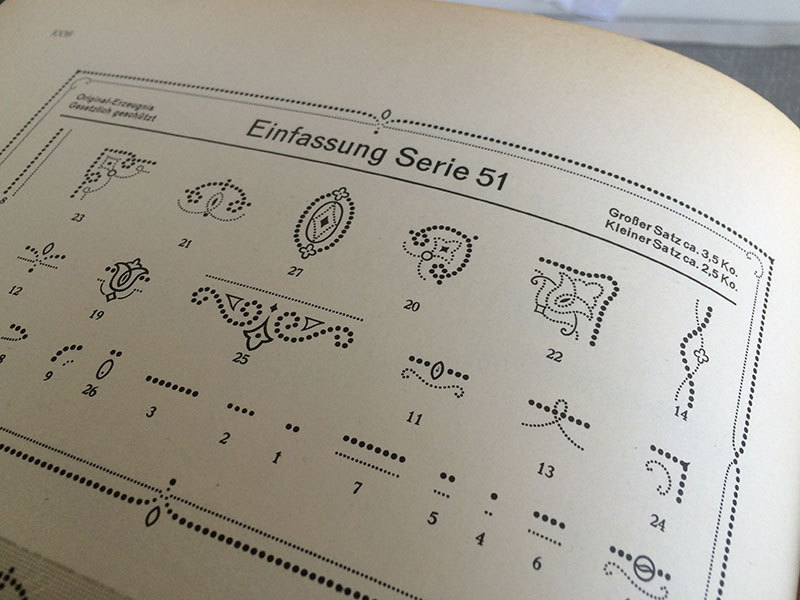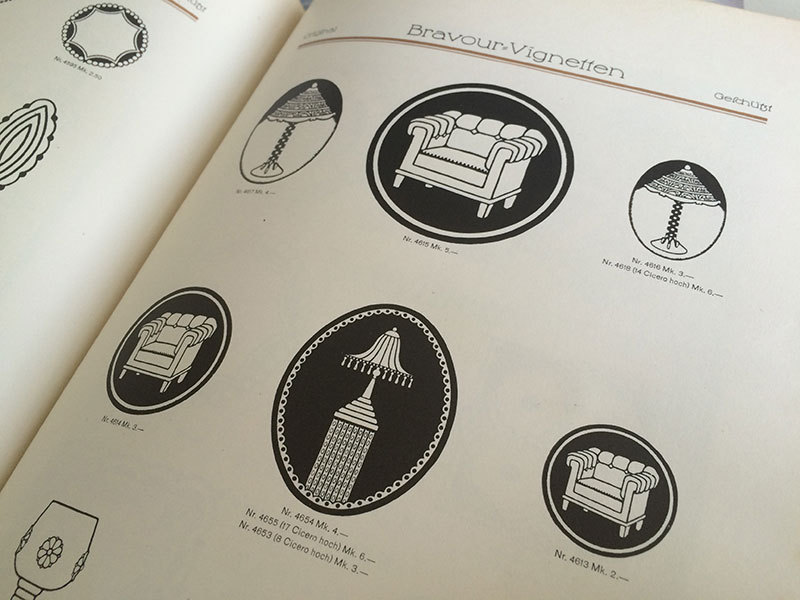
Metal type decoration terms
I am looking for 3 English terms from the metal type era.
1. In German it’s Einfassung, which means something like “enclosure elements”. What was the common term for these in English?
2. Those decorative illustrations made as a single block. Is there a specific term for those in English as in German (Vignette)?
3. And lastly, what is the umbrella term for all these kind of elements that are not directly letter-based? How was that called typically in old English metal type specimens? Just “decoration” or is there another term?
Interesting question, no perfect answer. In the ATF 1897 specimen book there wasn't a broad category. By 1923 they showed all of their Initials, Florets, Cuts, Spots, Borders, et al, in a section appropriately named "Decorative Material".
As regards the images you show, the first would be Borders, the second could be called
Vignettes depending upon use. In the second case they could also be called Cameos, Spots, Emblems, Symbols or Cuts depending upon design. If they were used along with additional decorative matter then I would refer to them as Vignettes. If they were used as an organization-specifc symbol they could be called Logos.
"Fleurons" is not an overall category but is a category of type matter which is floral by
design. They are also called "Florets".
In the old days what they were called was sometimes affected by the region of the world in which one was working -- especially in the US -- which further complicated the issue. In today's world that may not be so true.